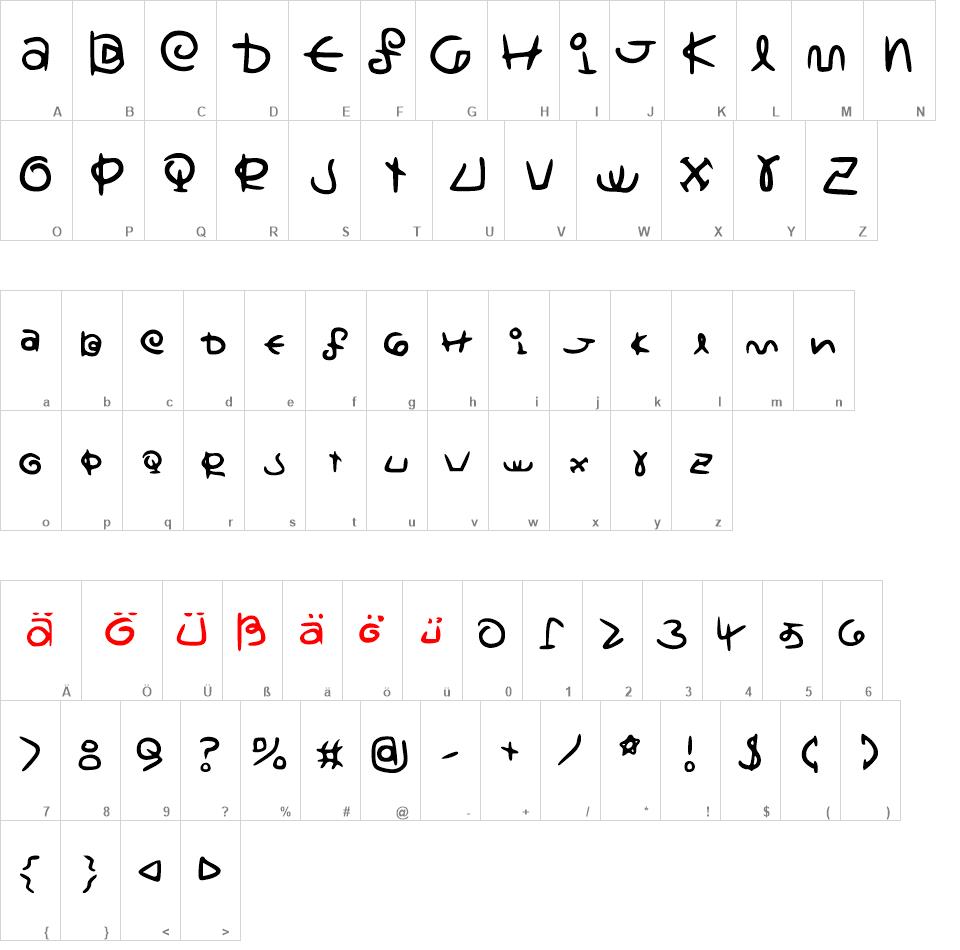
Saturnscript Handwritten
This is my attempt at creating a handwritten version of the Mr. Saturn font from EarthBound. Of course, some symbols would not be included, so I made a few from scratch in such a way I believe they would be done. Enjoy!